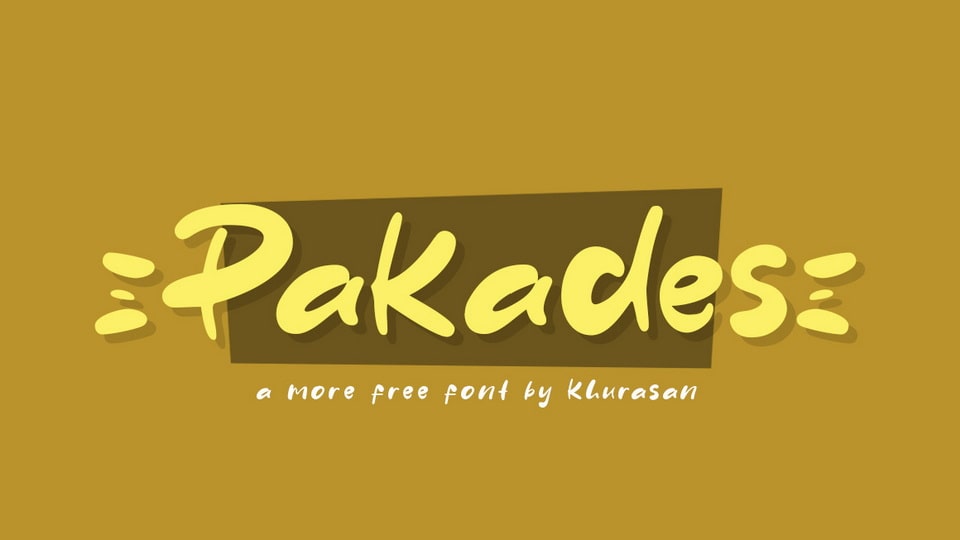
Feb 2, 2025Script & HandwrittenPakades Font Pakades is a modern and fancy handwritten font. It’s perfect for posters, logos, magazines, book covers, banners, and many more lovely designs. Font DetailsDesigned by: Khurasan (Syafrizal)WebsiteLicense: Free for commercial use Download Pakades FontFile size: 268.67 KBCreated: February 16, 2025Updated: February 16, 2025 Download Explore similar fonts Afilora Font Revival Analog Font Moment Fruitful Font Lolita Brush Font Sound Seekers Font Kertas Font # Brush# Casual# Hand-drawn# Handwriting More fonts by Khurasan (Syafrizal)Storycan FontDelight Coffee FontCakecafe FontFonters FontNowcloud FontLong Today FontHowlimit FontSpicy Curry Font